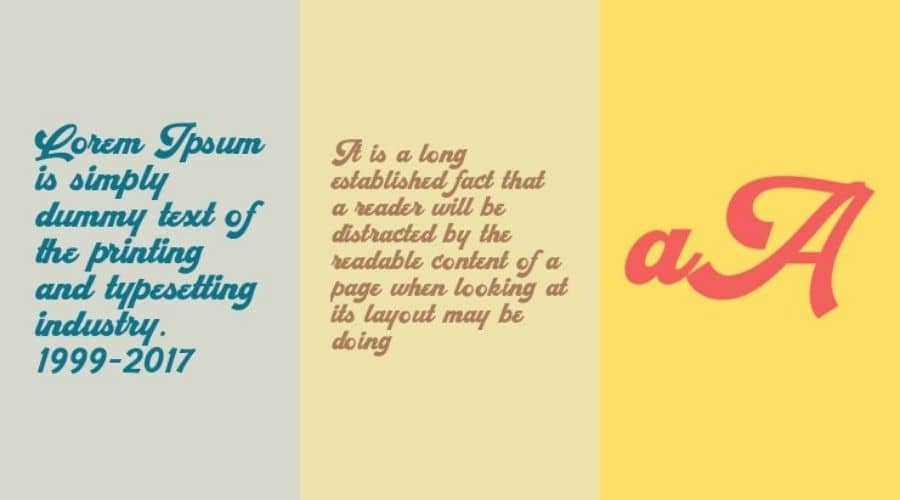
Retrofunk Script Font
Retrofunk Script Font is a brand new script and brush font that we’re releasing today. The vintage typographic design of the 1970s inspired Retrofunk. For logos, signboards, or a simple word mark, Script and Serif are a terrific combo. Retrofunk Script contains hundreds of Alternates with PUA Unicode. This is a vintage-style script font that always adds an extra special touch to your work. Hendra Pratama created and shared it. Regular is the subfamily. This font’s aggressiveness makes it attractive and appropriate for creative endeavors. It was uploaded on June 15, 2019.
The Retrofunk Script can be used to create unique designs, covers, shop and store names, and logos. The font is suitable for a wide range of antique projects. This font’s alternate characters will assist you in creating a bold, strong, artistic, and varied graphic design for flyers, posters, banner ads, T-Shirts, book covers, titles, or any retro or vintage typography.
| Name | Retrofunk Script Font |
| Style | Script |
| Designer | Hendra Pratama |